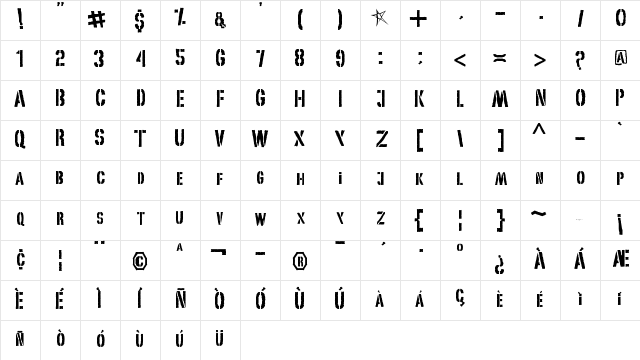
Avril Lavigne (sk8er_punkd@hotm Regular
Design Context for Avril Lavigne (sk8er_punkd@hotm Typeface
Avril Lavigne (sk8er_punkd@hotm is a composed and adaptable typeface that performs quietly and consistently across a wide range of design contexts.